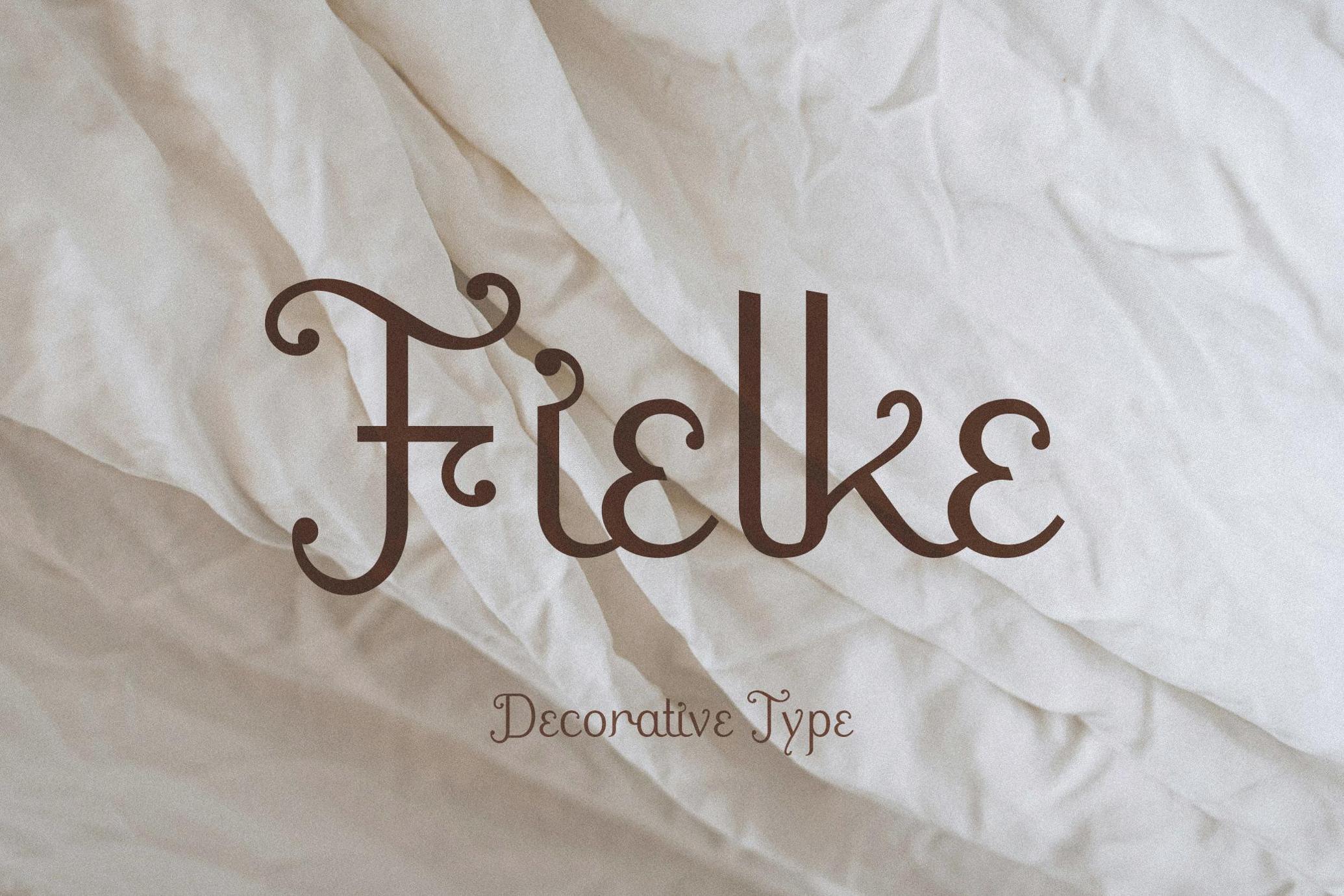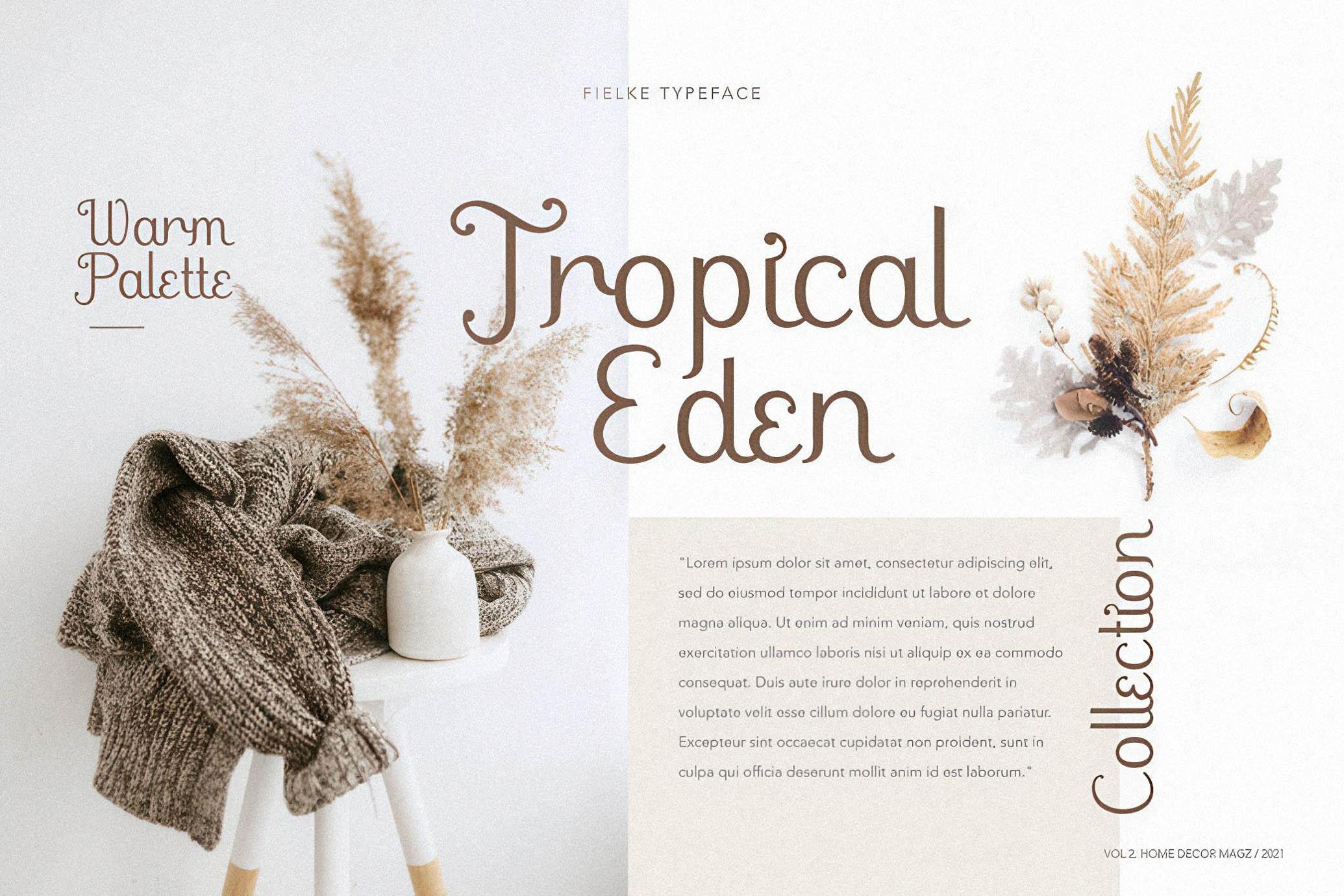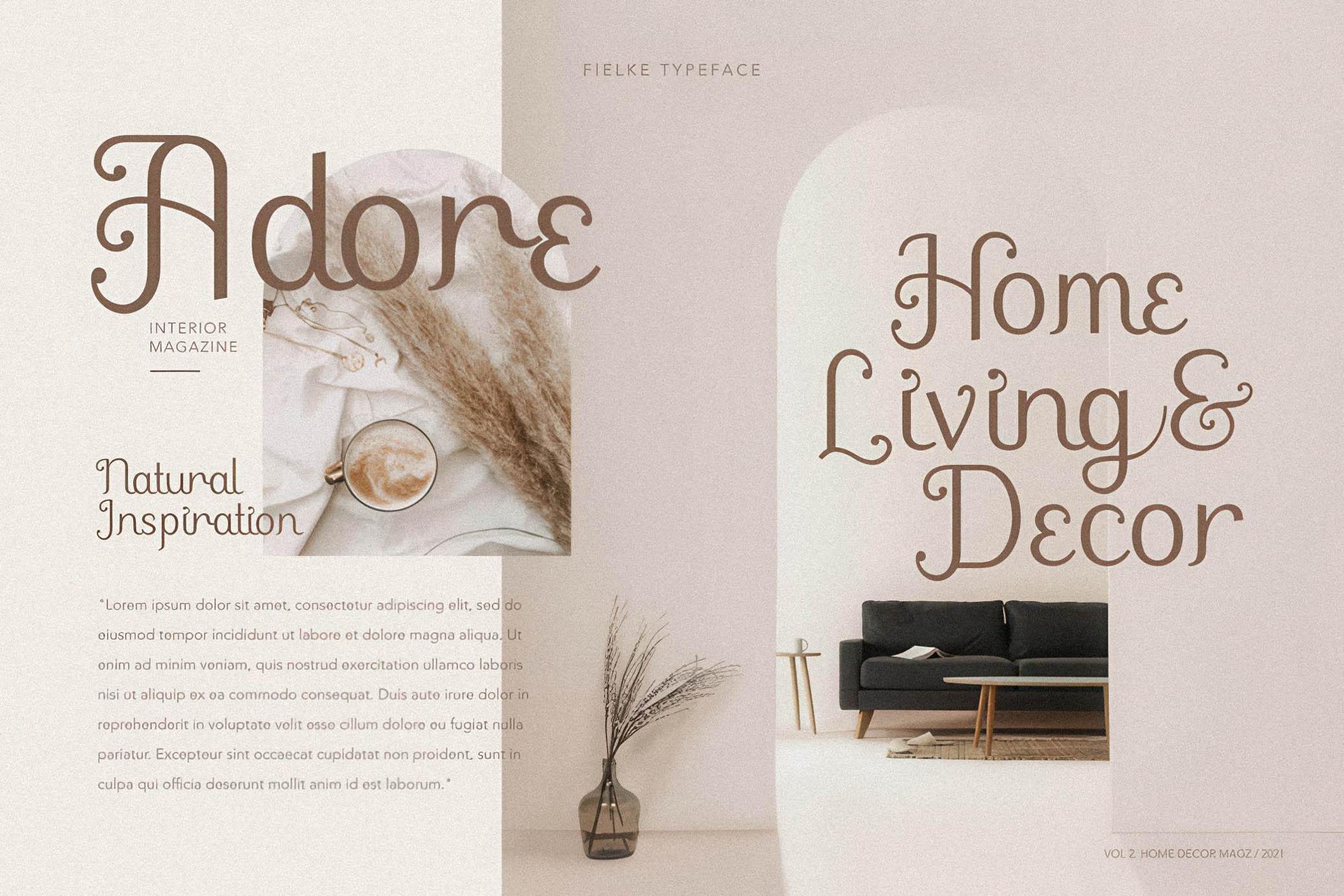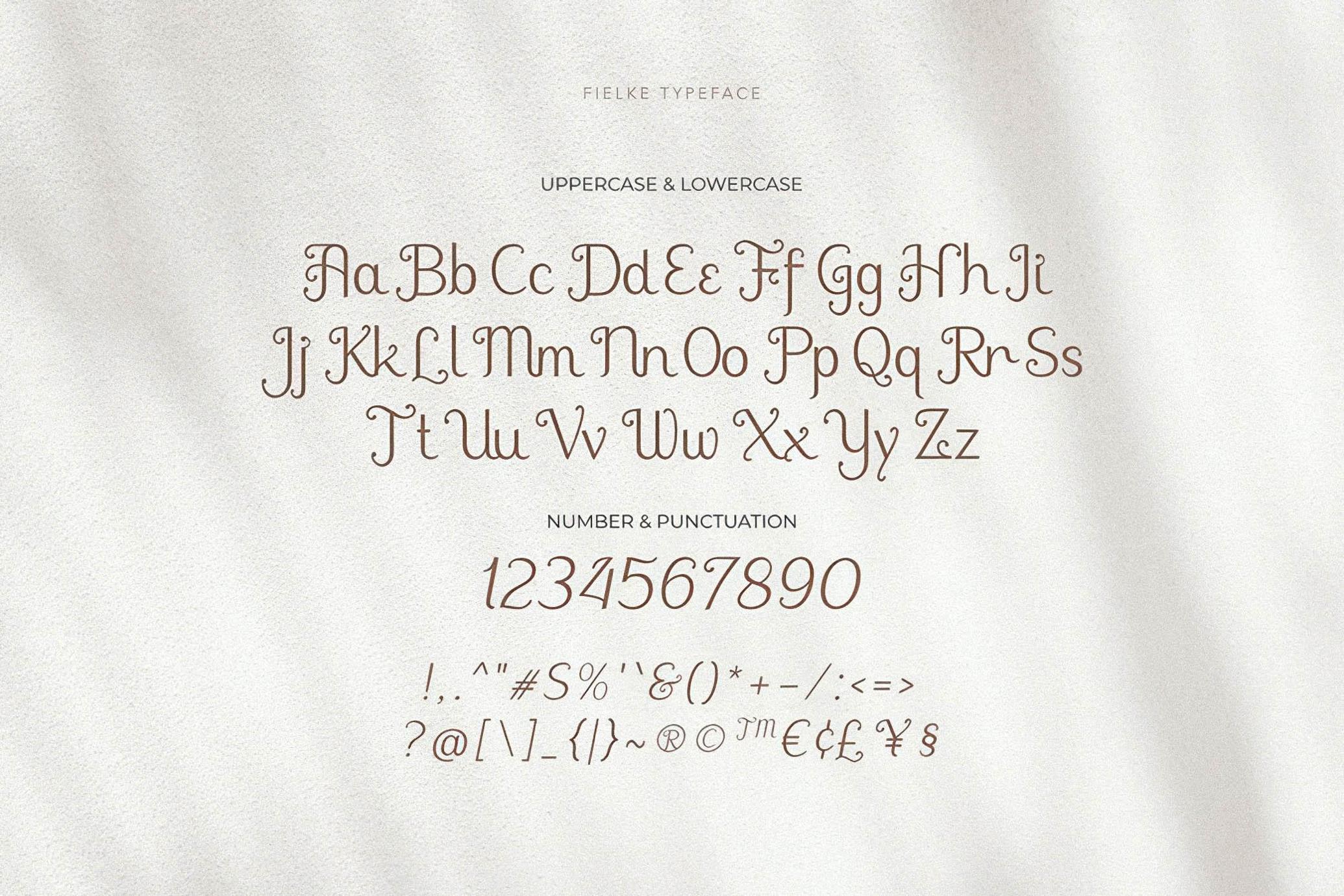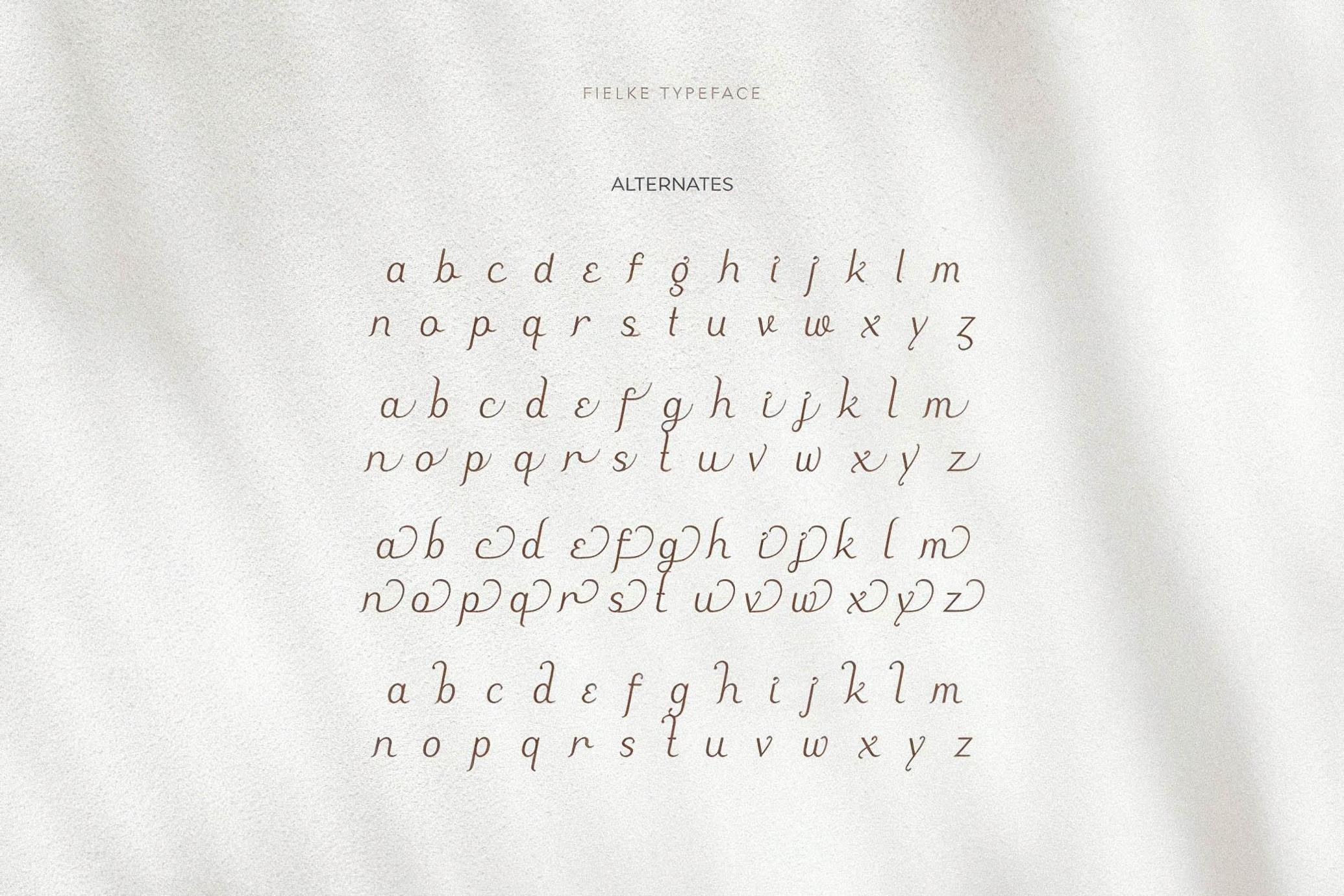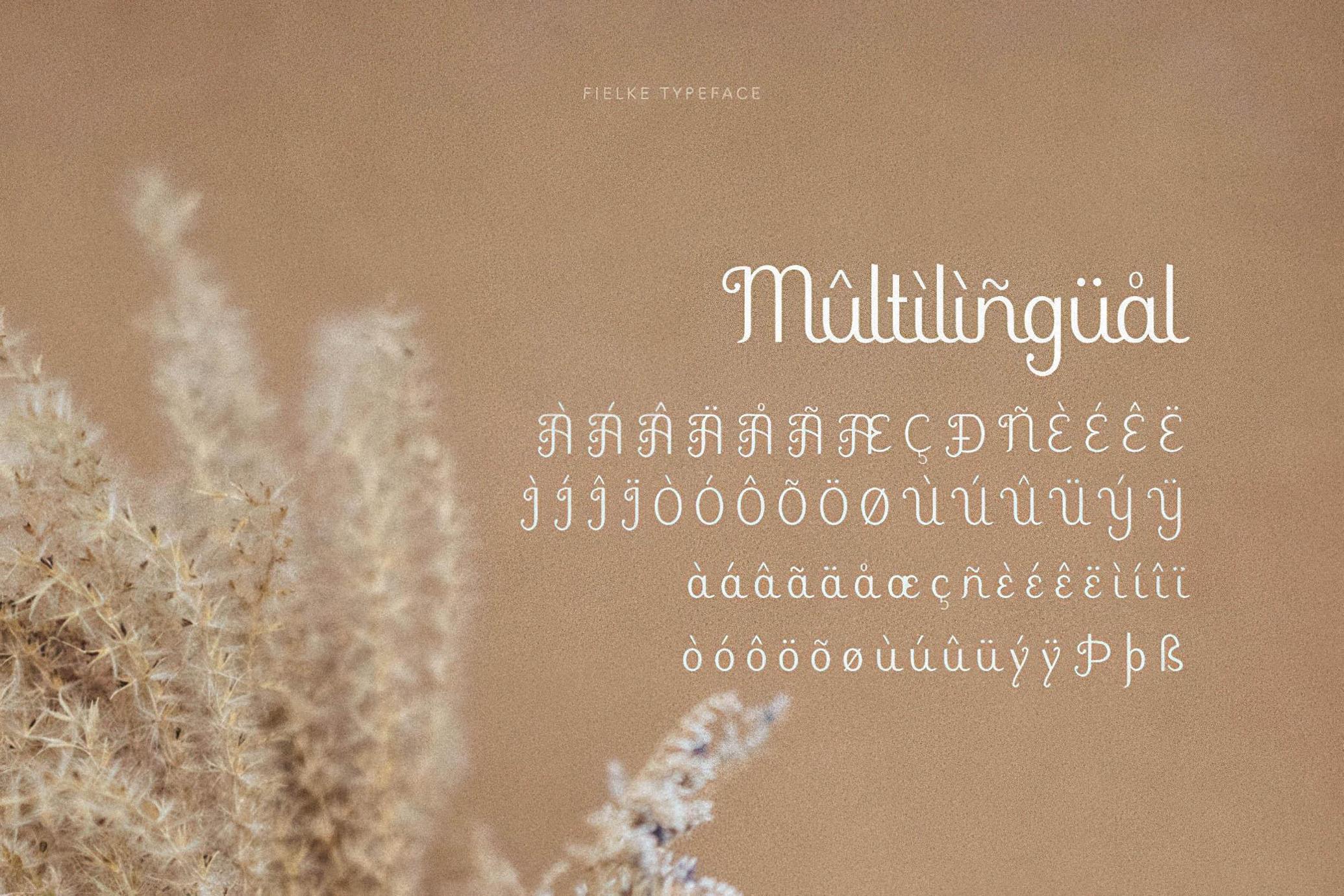
Fielke - Decorative Serif
Fielke
Fielke is elegant type with a beautiful decorative shape. This type is crafted with the touch of craftmanship. Fielke also clean have a ton of stylistic alternatives to choose. This typeface is perfect for an elegant logo, interior magazine, beauty product, packaging product, quotes, or simply as a stylish text overlay to any background image.
- Number & Punctuation
- Alternates